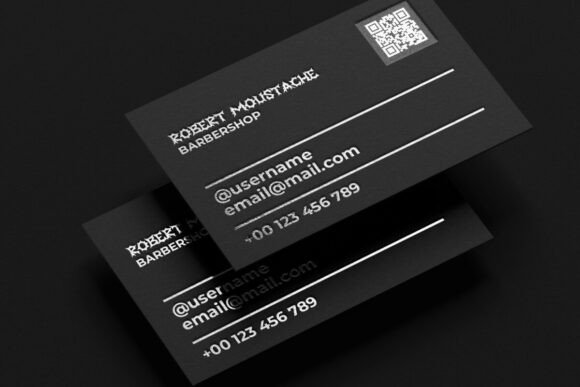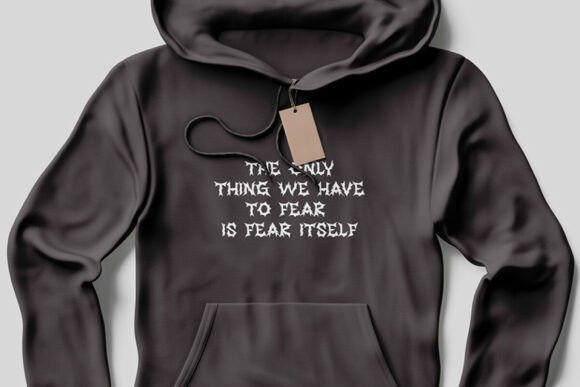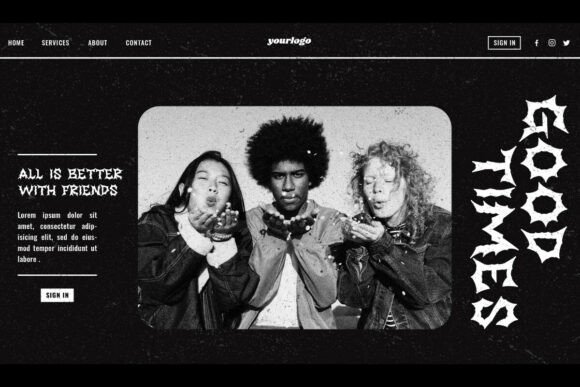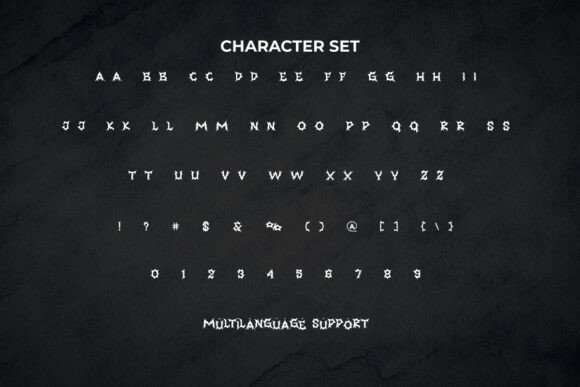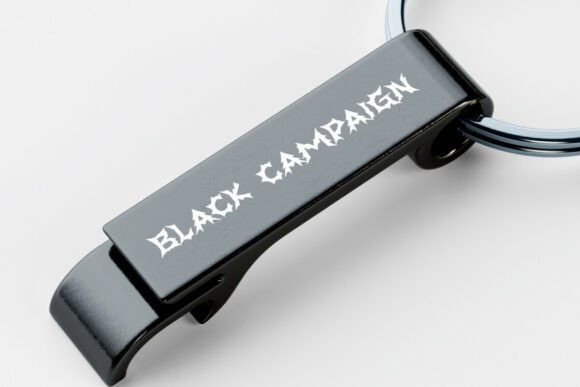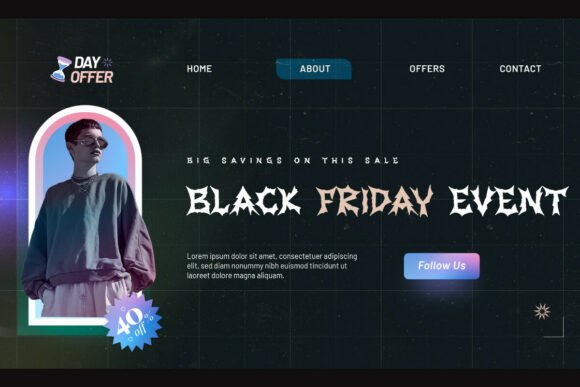
Unleashing Rebellion: The Power of Black Campaign Font
You know that moment when a design concept clicks, and the entire project starts to come together? It’s a rush of creativity, a spark of rebellion, and a dash of raw energy. For designers who crave that same intensity, the Black Campaign Font is the ultimate tool to unleash your inner chaos.
Conceived by NoahType, this spine-chilling display font is a masterclass in blackletter style, perfect for horror-themed posters, gaming graphics, and edgy apparel brands. With its sharp, thorn-like edges and irregular shapes, the Black Campaign Font is a statement of power that demands attention. Whether you’re designing a band logo or a thriller movie title, this typeface provides the “bite” necessary to leave a lasting impression.
For designers, the Black Campaign Font is a valuable asset that adds an extra layer of depth and emotion to any project. Its distressed, sharp-toothed details are best appreciated in large sizes, paired with dark, atmospheric backgrounds and high-contrast colors to amplify its intensity.
Key Features of Black Campaign Font
- Font Family: Black Campaign Font is a unique, custom-designed font, and it does not belong to any specific font family.
- Unique Characteristics: Black Campaign Font features a distinctive, bold, and modern design with a mix of geometric and organic elements, making it ideal for headings, titles, and other attention-grabbing text.
Black Campaign Font Review
Overall, I have mixed feelings about the Black Campaign Font. While it has some great features, it also has some limitations that might make it less suitable for certain projects.
- The font’s bold and strong appearance makes it perfect for creating a dramatic and luxurious feel in designs.
- Its high contrast between the thick and thin lines gives it a sophisticated and modern look.
- The font is highly customizable, allowing designers to adjust the weight, width, and spacing to fit their specific needs.
- The font’s limited character set might make it difficult to use in projects that require a wide range of languages or special characters.
- The font’s high contrast can sometimes make it difficult to read, especially in small text sizes.
- The font’s bold appearance can also make it feel overwhelming in certain contexts.
Overall, the Black Campaign Font is a great choice for designers who want to create a bold and luxurious feel in their designs. However, it’s not the best choice for projects that require a wide range of languages or special characters, or for designs where subtlety is key.
Getting the Most Out of Black Campaign Font
To get the most out of Black Campaign Font, use it for:
- Business cards
- Reports and presentations
Black Campaign Font is commonly used for:
- Modern and sleek designs
- Professional and corporate branding
- Outdoor advertising
- Point-of-sale displays
Alternatives to Black Campaign Font
Playfair Display is a luxurious serif font perfect for high-end designs, such as fashion brands, luxury goods, and special occasions. Its elegant and refined feel makes it ideal for creating a sense of sophistication and grandeur.
Compared to Black Campaign Font, Playfair Display has a more elegant and refined feel, making it suitable for more upscale designs. Black Campaign Font, on the other hand, has a more rugged and military-inspired feel.
Can I customize the Black Campaign Font for my project?
Yes, the Black Campaign Font can be customized to fit your project’s needs. You can adjust the font size, color, and spacing to create a unique look. Additionally, you can use font editors or software to modify the font’s design and create custom variants.